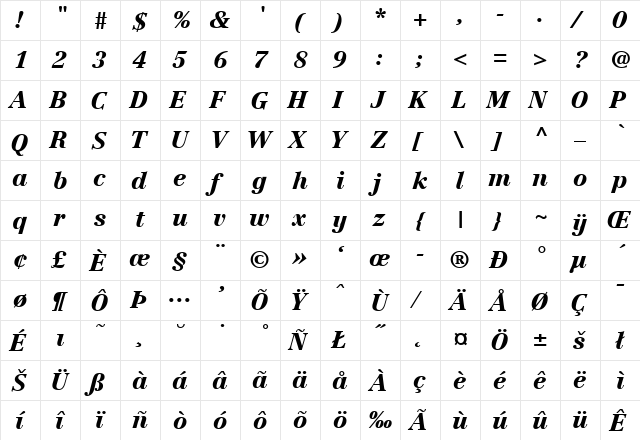
Centennial-BlackItalic Regular
Design Context for Centennial-BlackItalic Typeface
Centennial-BlackItalic offers clean, dependable letterforms without strong stylistic allegiance, making it a practical choice for designers who need flexibility. The dynamic lean of this cut emphasises speed and emphasis in any layout.
Dating back to 1988, this typeface is available in TrueType (TTF) format.
Pro Tip: Use Centennial-BlackItalic for emphasis, pull quotes, and subheadings where its slanted energy can add rhythm to the layout.